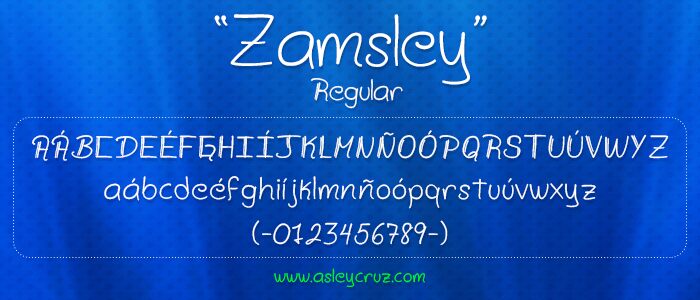
Zamsley by Asley Cruz is a free handwritten font with a quick, unguarded line and unusually tall letterforms. The strokes are mostly slim and rounded, but occasional doubled lines and abrupt overlaps preserve the unevenness of marker lettering. The loose spacing and long vertical sweeps make the writing feel personal and slightly restless, with broad changes in proportion from one letter to the next.
Independent music and casual fashion match its lanky motion. Across album artwork, invitations, clothing labels, and lifestyle packaging, the lettering reads like a hastily drawn signature and helps establish a recognizable product or event identity rooted in an informal, maker-led image.